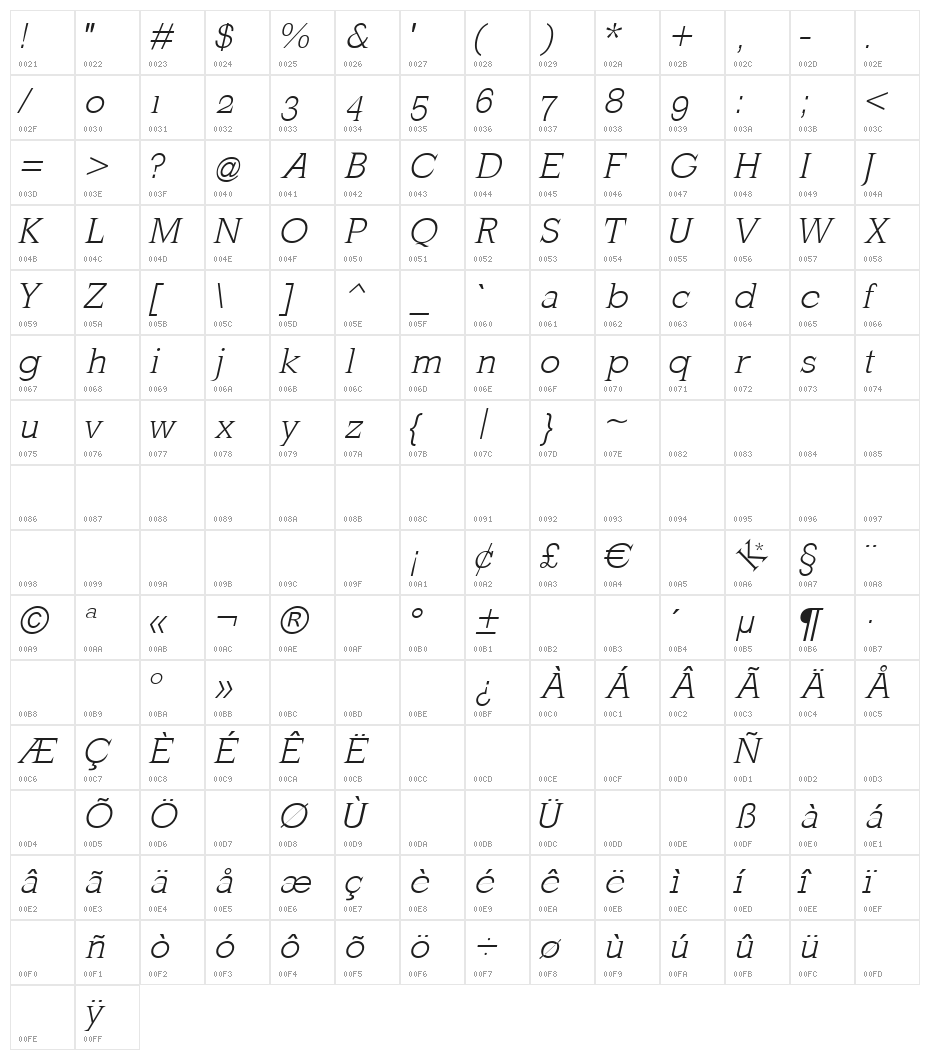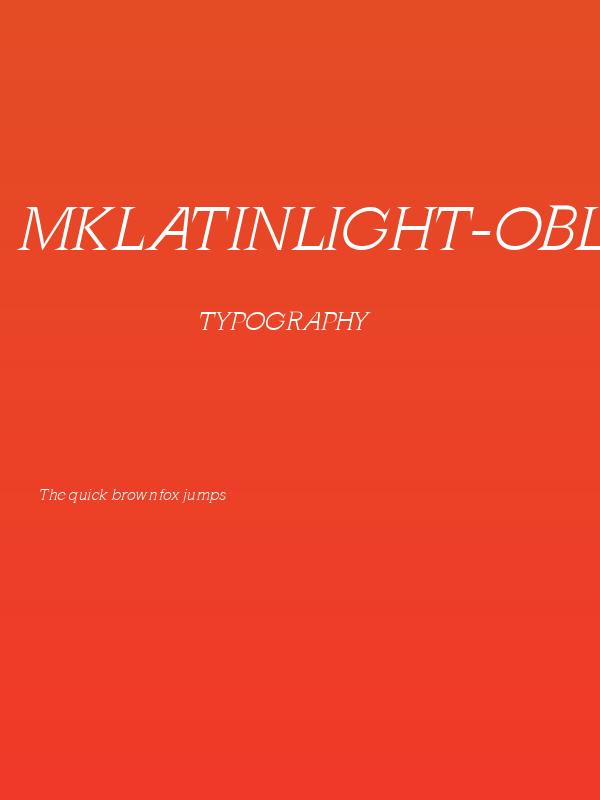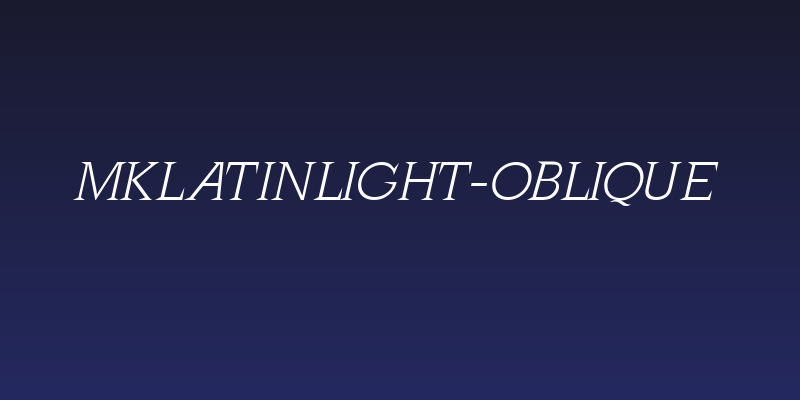
MkLatinLight-Oblique Font
MkLatinLight-Oblique Description
This font features a sleek and elegant design with a slight oblique slant, giving it a sophisticated and modern appearance. The characters are well-defined with a light weight, making it suitable for a variety of applications where a touch of elegance is desired. The uppercase and lowercase letters maintain a consistent style, with smooth curves and sharp edges that enhance readability. The numerals and special characters are designed to complement the alphabet, ensuring uniformity across all text. This font's clean lines and subtle slant make it versatile for both digital and print media.
| Proposed Projects | Ideal for branding, editorial design, invitations, and elegant web design. |